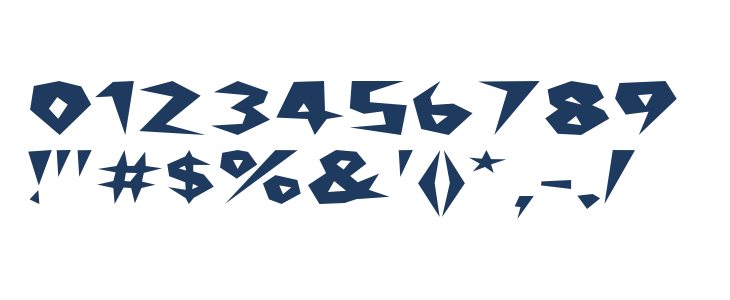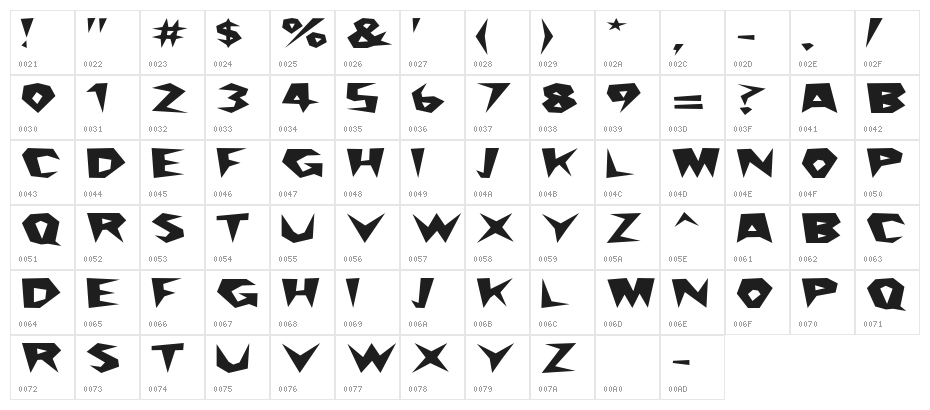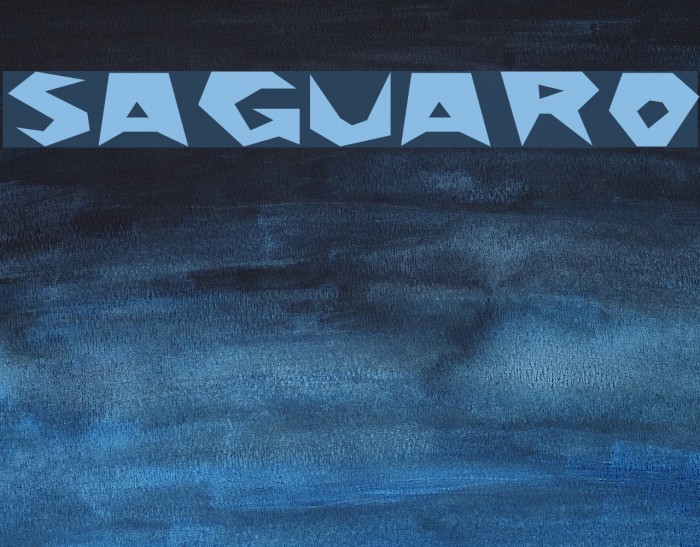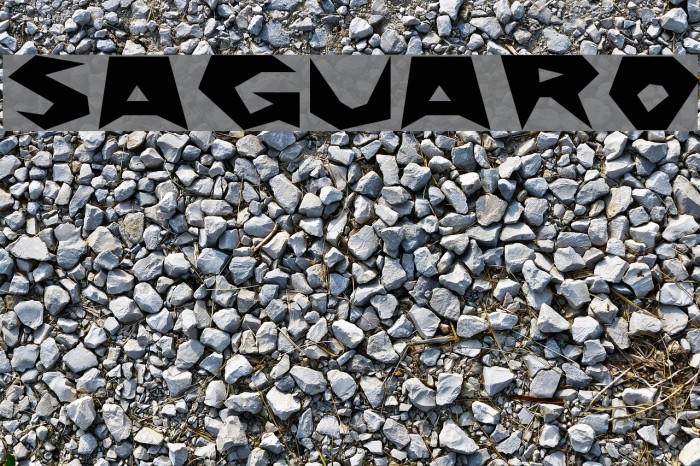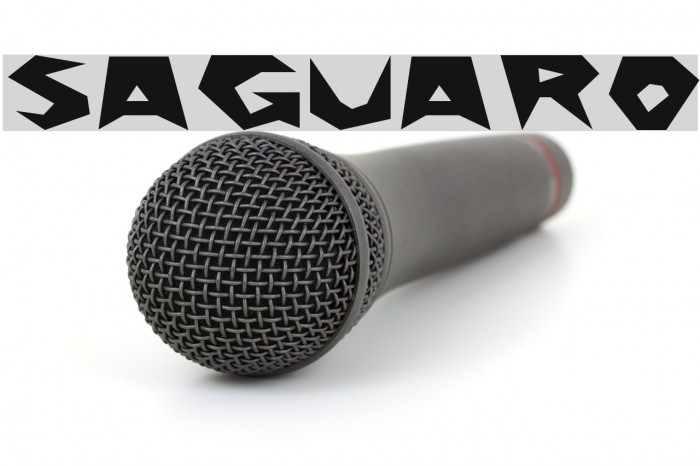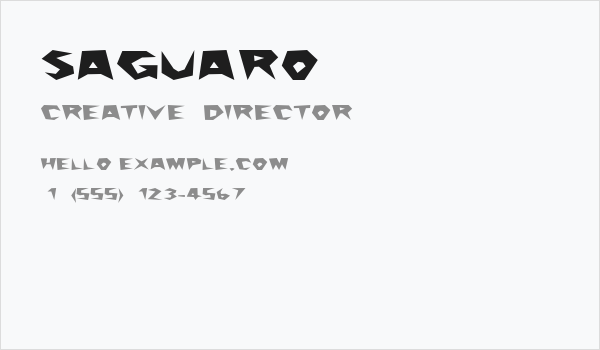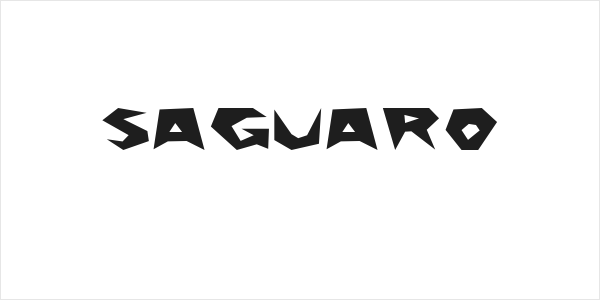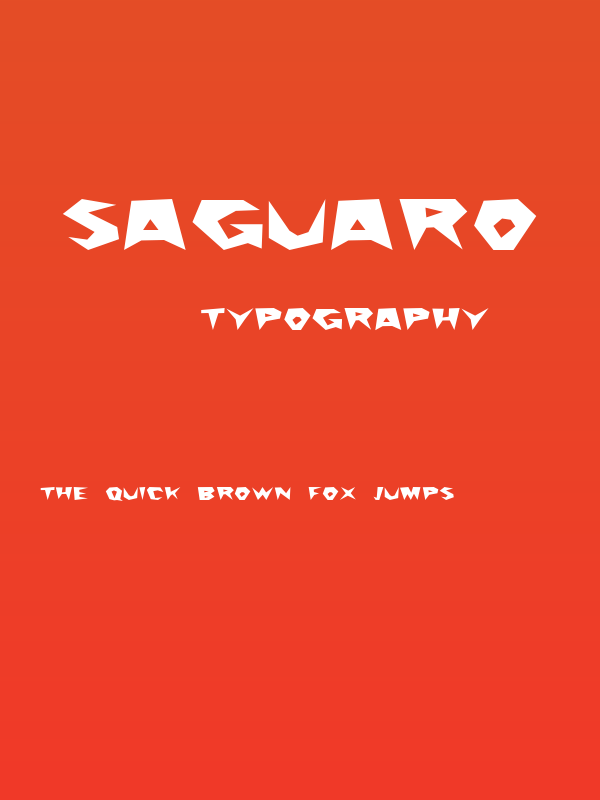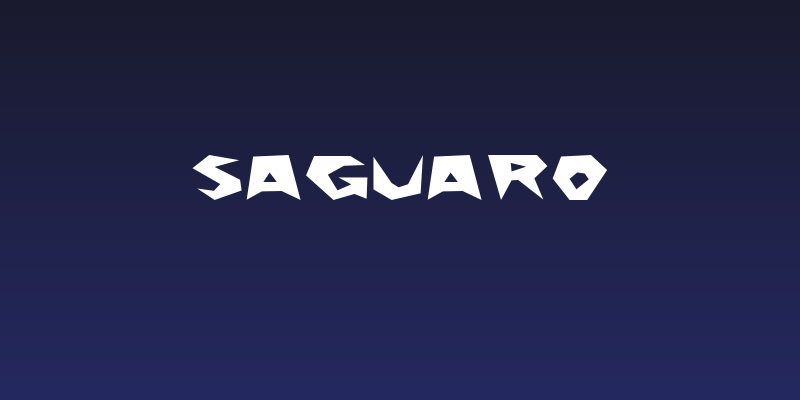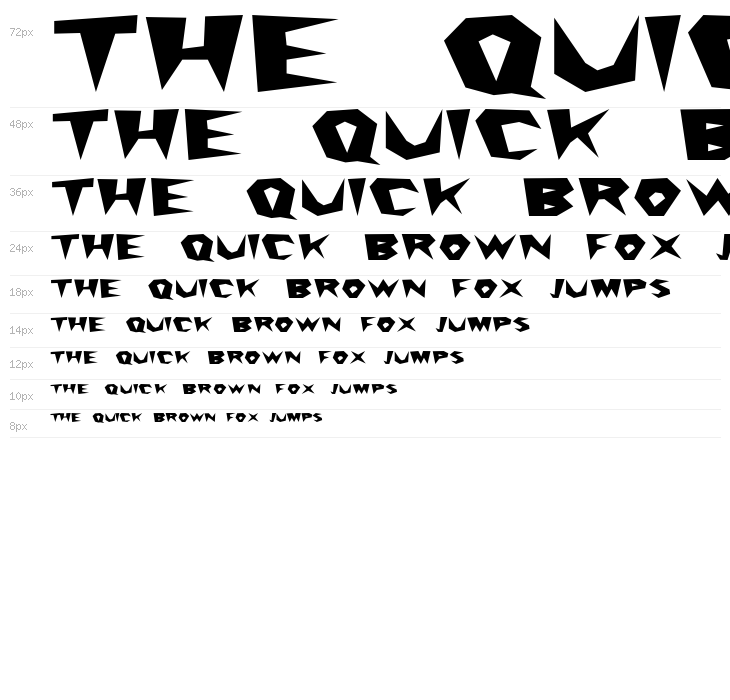
Saguaro Font
Saguaro Description
This font features a bold and angular design, characterized by sharp, jagged edges and a dynamic, energetic appearance. The letters are crafted with a sense of movement, resembling shards or fragments, which gives the typeface a unique and striking look. The uppercase and lowercase letters maintain a consistent style, with each character exhibiting a distinct geometric form. Numbers and special characters follow the same angular theme, ensuring a cohesive visual identity across all elements. The font's aggressive and edgy style makes it particularly suitable for projects that require a bold statement or a modern, unconventional aesthetic.
| Overall Style | Modern, Edgy |
| Proposed Projects | Ideal for music album covers, video game titles, extreme sports branding, or any project needing a bold, edgy aesthetic. |